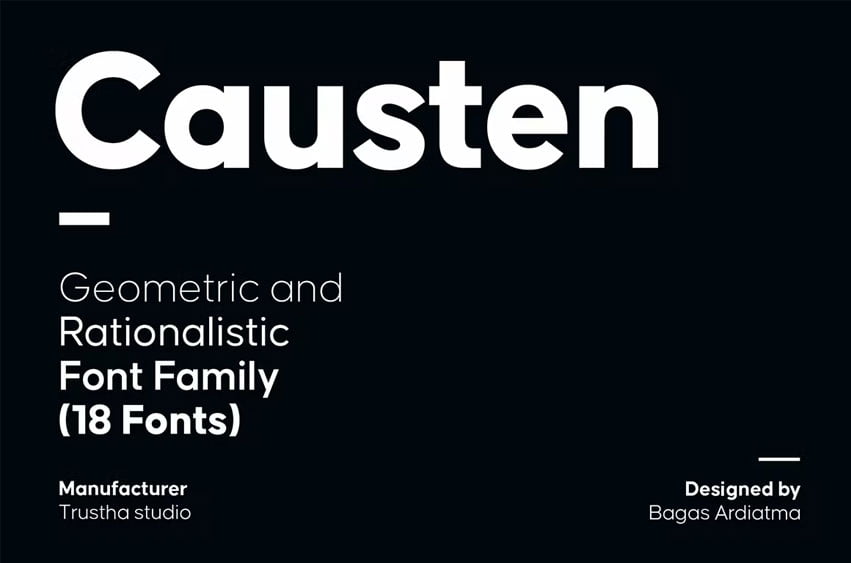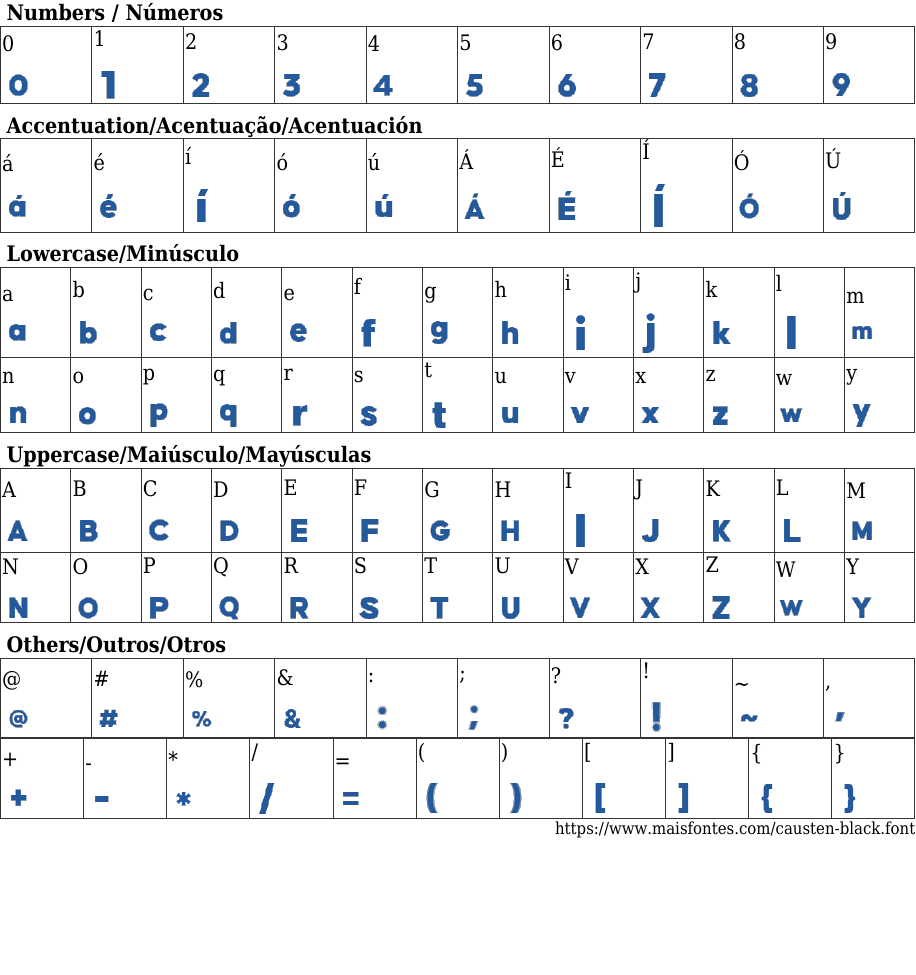
Causten Black Font Free Download - Causten is a geometric sans serif font family by bagas ardiatma. Use the sharpness of the eyes, and remain. It has specific characteristics for controlling the shape and size of the glyphs. Examples of this font can be found on the font site exfont, designed by bagas ardiatma, include the number of glyphs 431. Causten font is a geometric sans serif font family with maintains rationality in designing each form.
Use the sharpness of the eyes, and remain. Examples of this font can be found on the font site exfont, designed by bagas ardiatma, include the number of glyphs 431. Causten is a geometric sans serif font family by bagas ardiatma. It has specific characteristics for controlling the shape and size of the glyphs. Causten font is a geometric sans serif font family with maintains rationality in designing each form.
Examples of this font can be found on the font site exfont, designed by bagas ardiatma, include the number of glyphs 431. It has specific characteristics for controlling the shape and size of the glyphs. Causten font is a geometric sans serif font family with maintains rationality in designing each form. Causten is a geometric sans serif font family by bagas ardiatma. Use the sharpness of the eyes, and remain.
Examples of this font can be found on the font site exfont, designed by bagas ardiatma, include the number of glyphs 431. Causten is a geometric sans serif font family by bagas ardiatma. It has specific characteristics for controlling the shape and size of the glyphs. Use the sharpness of the eyes, and remain. Causten font is a geometric sans.
Causten font is a geometric sans serif font family with maintains rationality in designing each form. It has specific characteristics for controlling the shape and size of the glyphs. Use the sharpness of the eyes, and remain. Examples of this font can be found on the font site exfont, designed by bagas ardiatma, include the number of glyphs 431. Causten.
It has specific characteristics for controlling the shape and size of the glyphs. Causten font is a geometric sans serif font family with maintains rationality in designing each form. Examples of this font can be found on the font site exfont, designed by bagas ardiatma, include the number of glyphs 431. Use the sharpness of the eyes, and remain. Causten.
It has specific characteristics for controlling the shape and size of the glyphs. Causten is a geometric sans serif font family by bagas ardiatma. Use the sharpness of the eyes, and remain. Causten font is a geometric sans serif font family with maintains rationality in designing each form. Examples of this font can be found on the font site exfont,.
It has specific characteristics for controlling the shape and size of the glyphs. Use the sharpness of the eyes, and remain. Causten font is a geometric sans serif font family with maintains rationality in designing each form. Examples of this font can be found on the font site exfont, designed by bagas ardiatma, include the number of glyphs 431. Causten.
Use the sharpness of the eyes, and remain. It has specific characteristics for controlling the shape and size of the glyphs. Examples of this font can be found on the font site exfont, designed by bagas ardiatma, include the number of glyphs 431. Causten font is a geometric sans serif font family with maintains rationality in designing each form. Causten.
Causten Round Font Family » Free Download Vector Stock Image Icon
Examples of this font can be found on the font site exfont, designed by bagas ardiatma, include the number of glyphs 431. Causten is a geometric sans serif font family by bagas ardiatma. It has specific characteristics for controlling the shape and size of the glyphs. Causten font is a geometric sans serif font family with maintains rationality in designing.
Causten Font Dafont File
Causten is a geometric sans serif font family by bagas ardiatma. Examples of this font can be found on the font site exfont, designed by bagas ardiatma, include the number of glyphs 431. Use the sharpness of the eyes, and remain. It has specific characteristics for controlling the shape and size of the glyphs. Causten font is a geometric sans.
Causten Font Download Fontsbear
Use the sharpness of the eyes, and remain. Causten font is a geometric sans serif font family with maintains rationality in designing each form. Causten is a geometric sans serif font family by bagas ardiatma. It has specific characteristics for controlling the shape and size of the glyphs. Examples of this font can be found on the font site exfont,.
Causten Font Family Dfonts
Examples of this font can be found on the font site exfont, designed by bagas ardiatma, include the number of glyphs 431. Causten font is a geometric sans serif font family with maintains rationality in designing each form. Use the sharpness of the eyes, and remain. Causten is a geometric sans serif font family by bagas ardiatma. It has specific.
Causten Font Is A Geometric Sans Serif Font Family With Maintains Rationality In Designing Each Form.
Causten is a geometric sans serif font family by bagas ardiatma. It has specific characteristics for controlling the shape and size of the glyphs. Use the sharpness of the eyes, and remain. Examples of this font can be found on the font site exfont, designed by bagas ardiatma, include the number of glyphs 431.